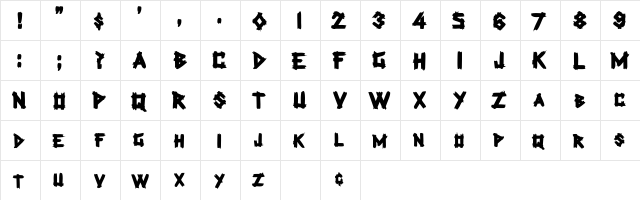
BarwoodSCapsSSK Bold
Design Context for BarwoodSCapsSSK Typeface
BarwoodSCapsSSK taps into classic Western woodtype traditions — bold, characterful, and impossible to ignore. The heavy weight commands attention and anchors typographic hierarchies.
Perfect for barbecue restaurants, country music branding, vintage poster design, and rustic packaging.
Font Pairing: Combine BarwoodSCapsSSK with a simple slab or neutral sans — period-accurate companions reinforce the vintage feel without competing for attention.
Pro Tip: Pair BarwoodSCapsSSK with aged textures or distressed backgrounds to amplify its vintage personality.